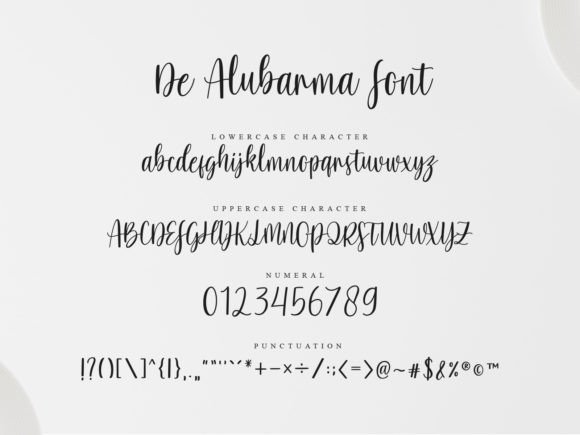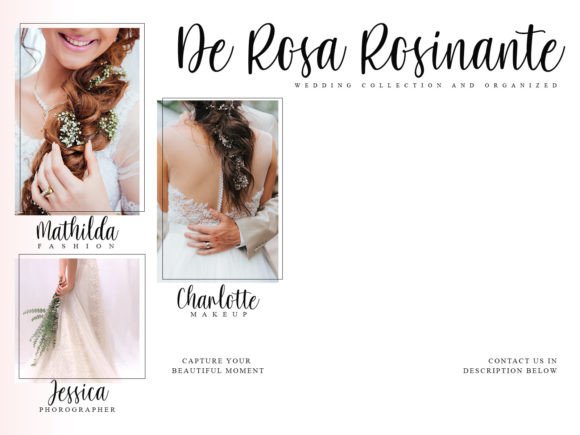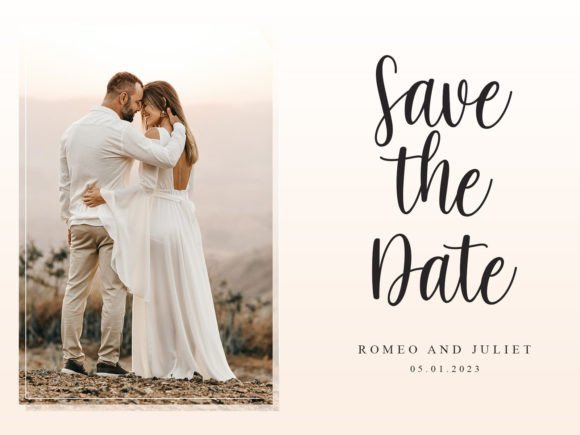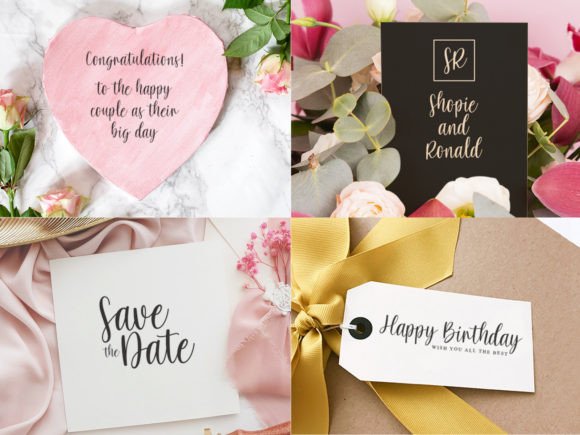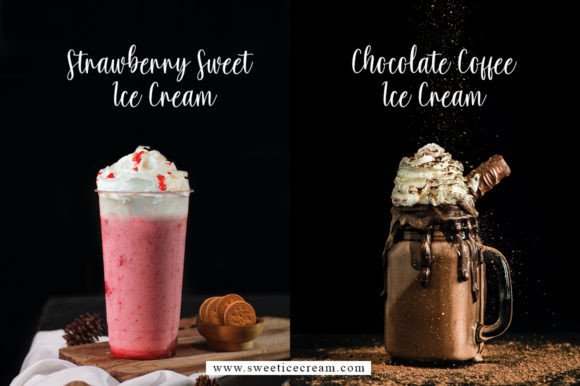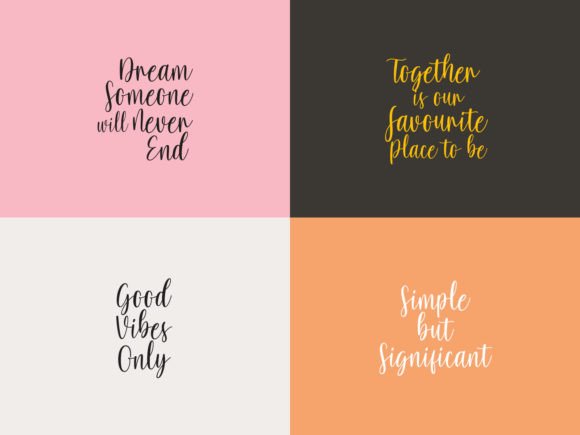
Introduction to De Alubarma Font
De Alubarma is a gorgeous handwritten font that impresses through its natural and elegant style.
Add it to your most creative ideas, and notice how it transforms them into authentic pieces of art .
Key Features of De Alubarma Font